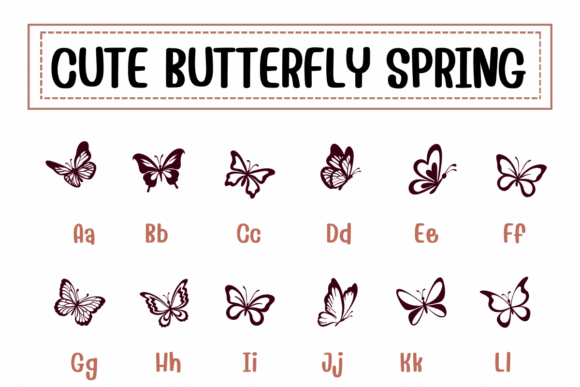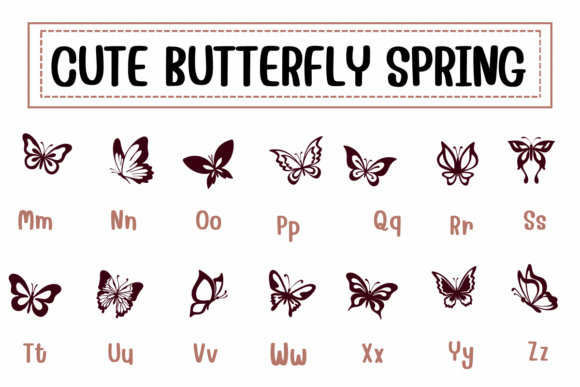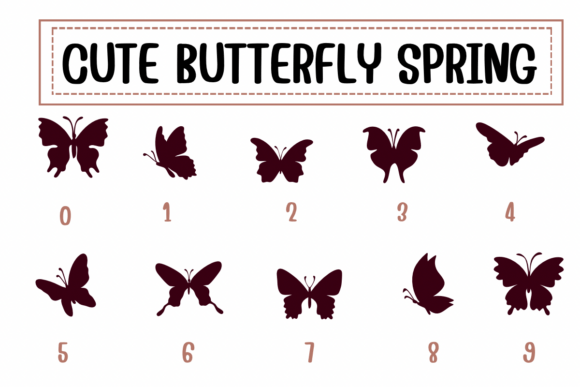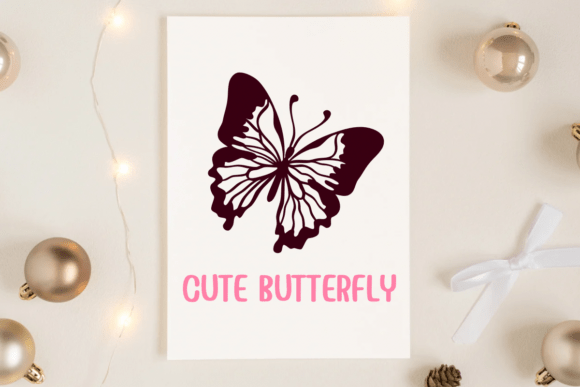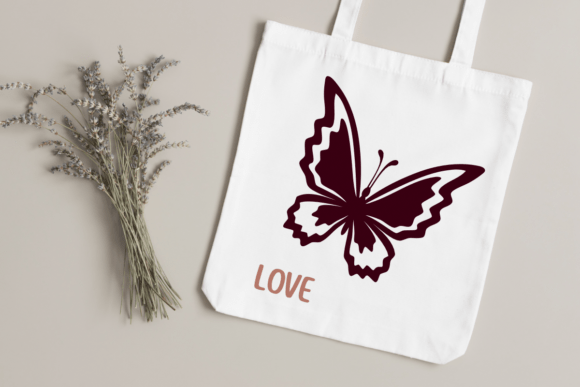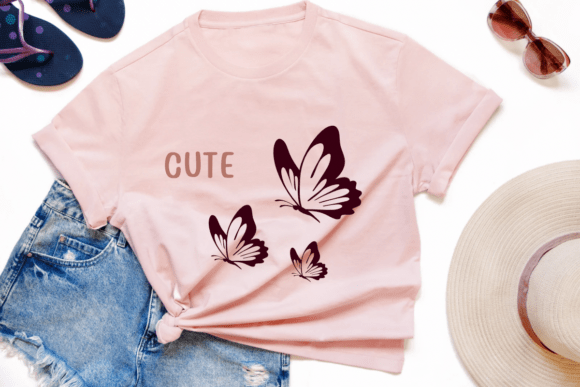
Introduction to Cute Butterfly Spring Font
Cute Butterfly Spring is a lovely dingbats font.
Add it to your creative ideas and enjoy the results .
Key Features of Cute Butterfly Spring Font
Why Choose Cute Butterfly Spring Font?
Cute Butterfly Spring Font offers exceptional quality and versatility, making it a valuable addition to your design toolkit. Whether you’re creating for personal projects or commercial use, Cute Butterfly Spring Font delivers professional results.